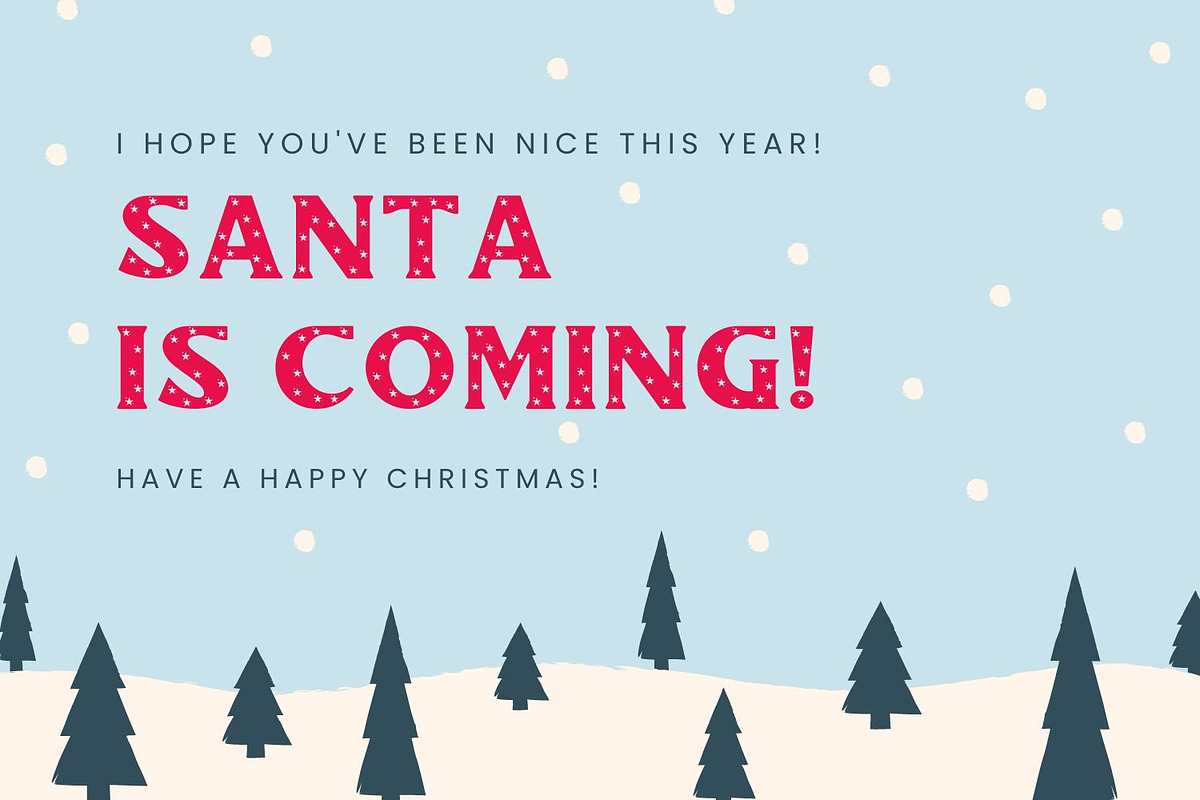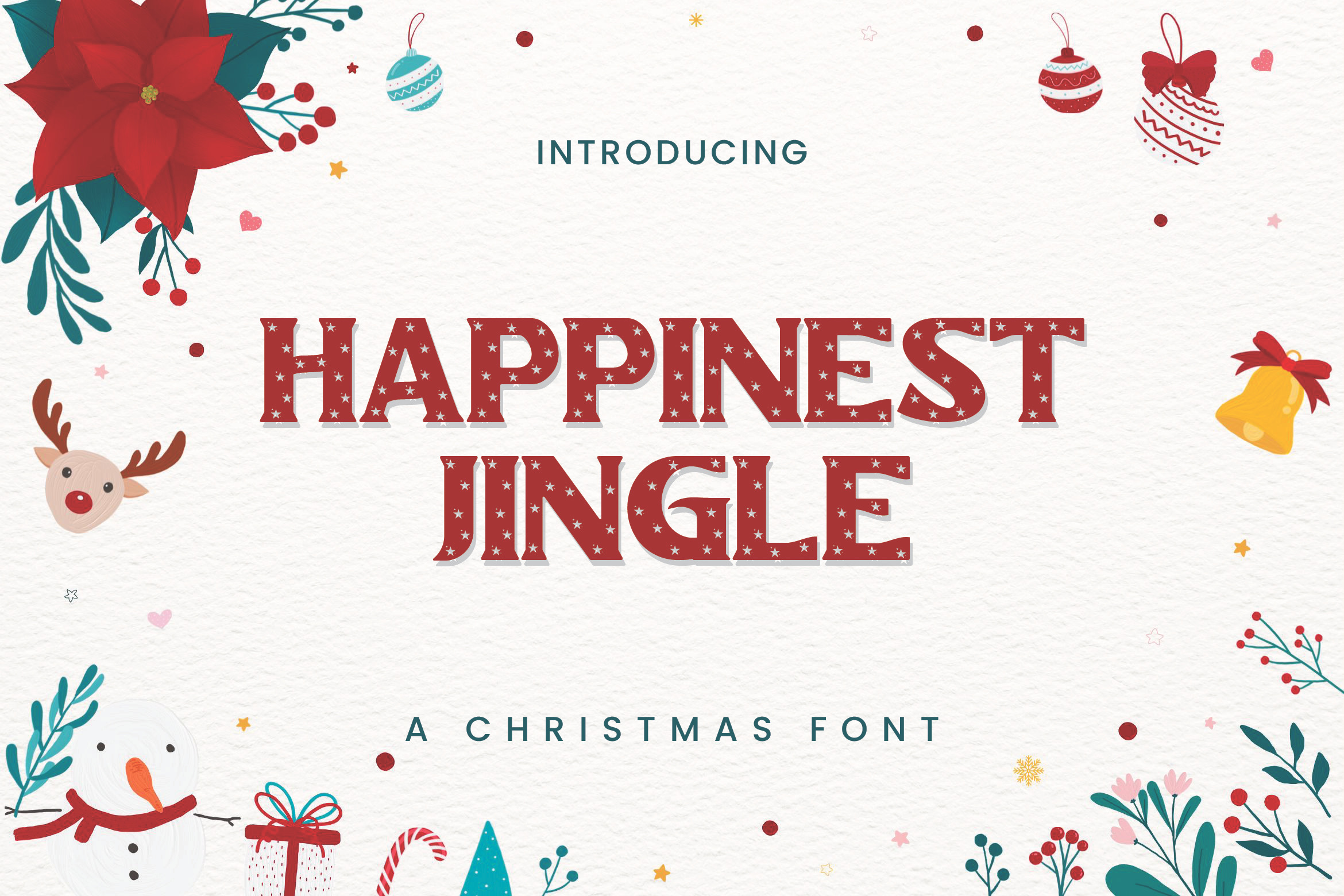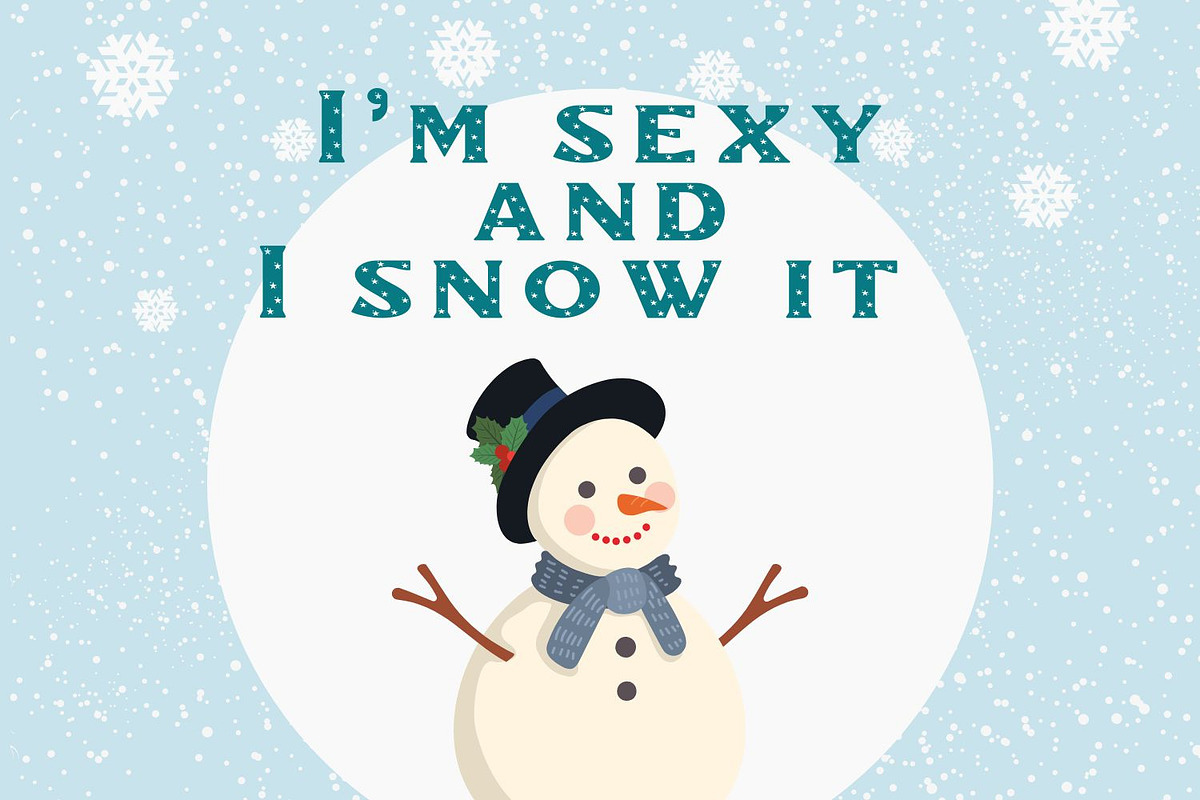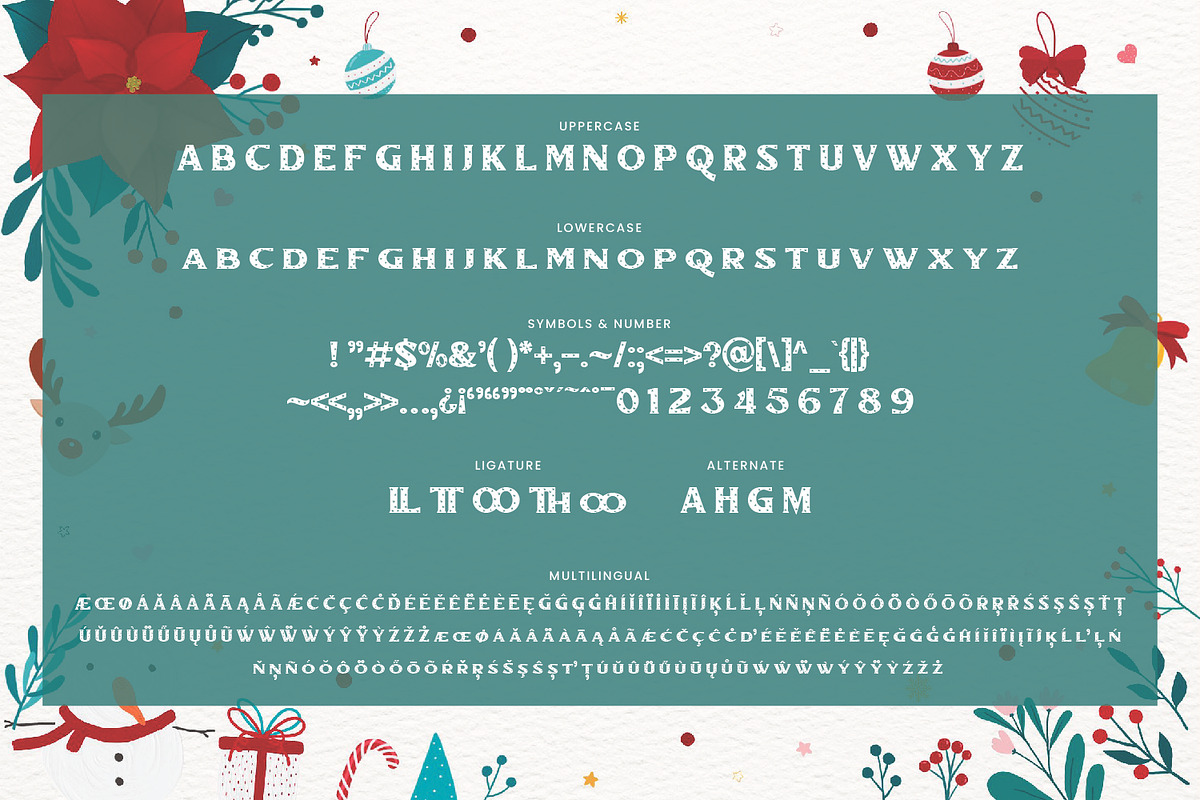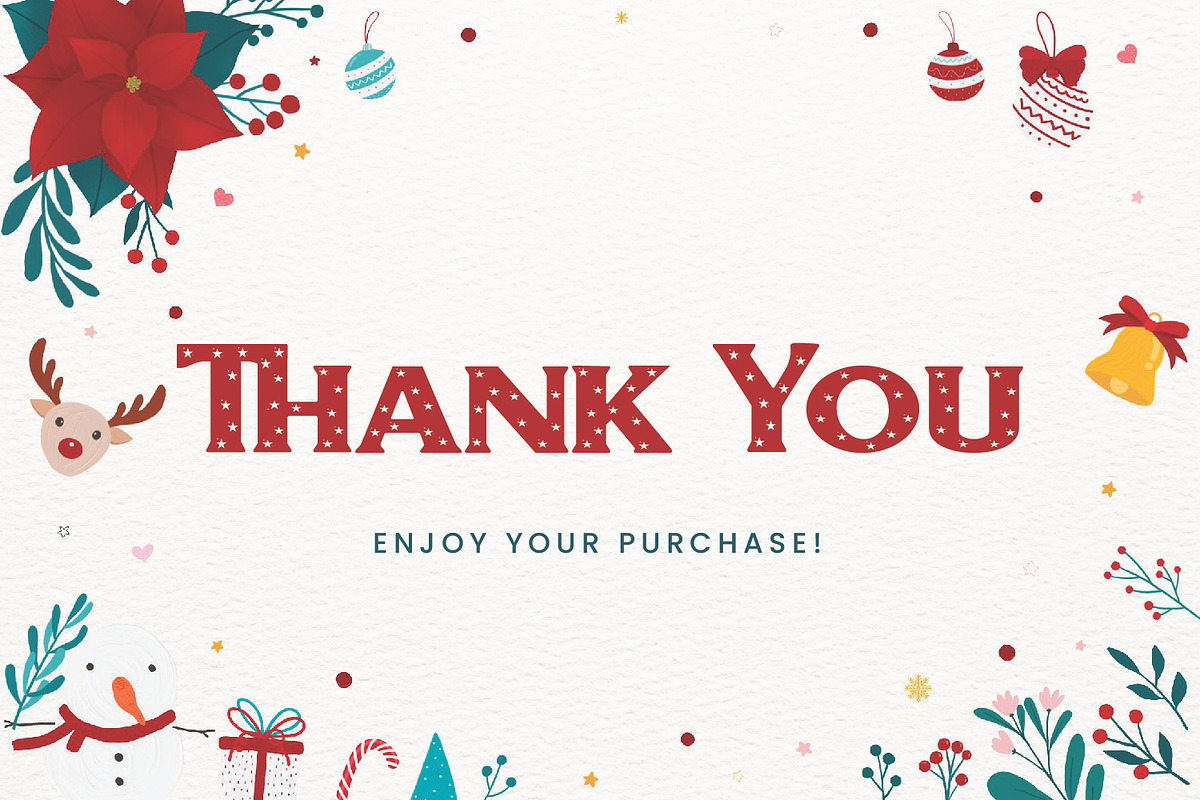
Happinest Jingle Christmas Font
Happinest Jingle - Christmas Font is a Christmas Font with star pattern, resulting in this amazing font. This font is impressive making it a perfect fit for your large projects. It is perfect to use in all your design projects, be it logos, signatures, labels, packaging designs, quotes, heading titles, movie titles and much more. No matter the setting, Happinest Jingle will make your text stand out!
The alternative characters were divided into several features such as Stylistic Sets, Stylistic Alternates, and Ligature. The Open Type features can be accessed by using Open Types savvy programs such as Adobe Illustrator, Adobe InDesign, Adobe Photoshop Corel Draw X version, And Microsoft Word. And this Font has given PUA Unicode (specially coded fonts). so that all the alternate characters can easily be accessed in full
- Tons of glyphs
- Alternates and Ligatures
- Punctional
- Fonts include Multilingual Support